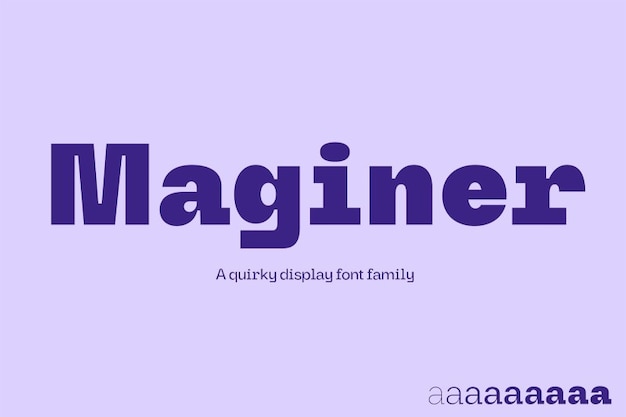
Maginer Font
It is the bold, quirky font that brings a dash of playfulness to any project. Its unique design makes it a favorite for magazine layouts, where it adds a touch of personality and flair. Whether it's headlines or creative text, "Maginer" stands out, making your content memorable and fun.